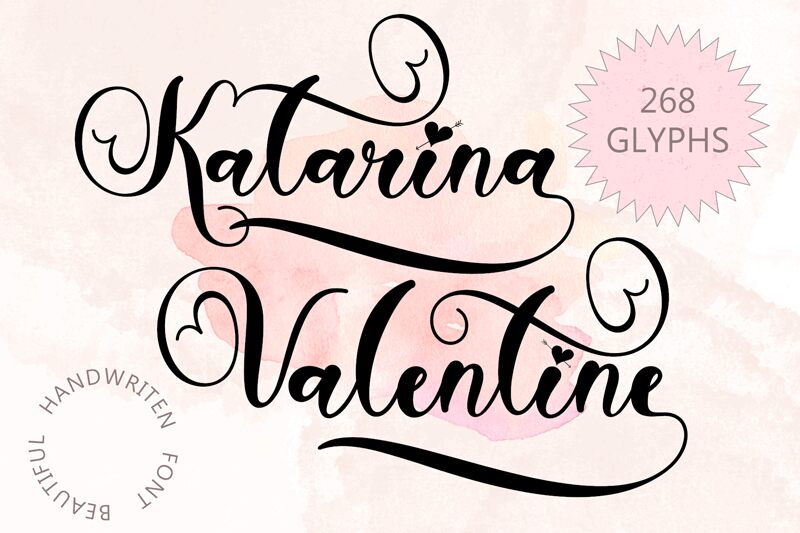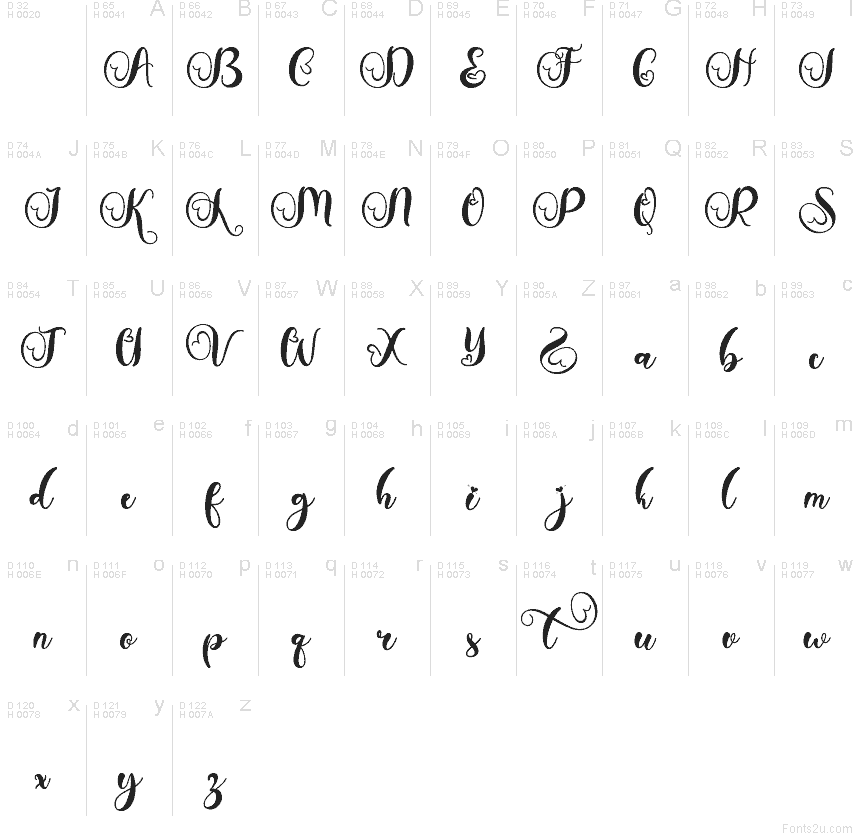
Katarina Valentine
Katarina Valentine font by Yoga Letter is a free romantic calligraphy typeface that writes like a love note in wet ink. Loose, swirling strokes curl into generous heart‑like loops, while the thicker downstrokes give each word a soft, brushy weight. There’s an easy, hand‑lettered flow here—elegant but not stiff—that makes every line feel personal, like it was written just for one person.
Using Katarina Valentine, your designs instantly pick up a dreamy, handwritten charm that shines on wedding invitations, Valentine’s cards, love quotes, brand marks for boutiques, product packaging, and social media posts. Its sweeping forms fill space beautifully at larger sizes, so let it breathe and pair this free font with a clean sans serif for small details or supporting text.